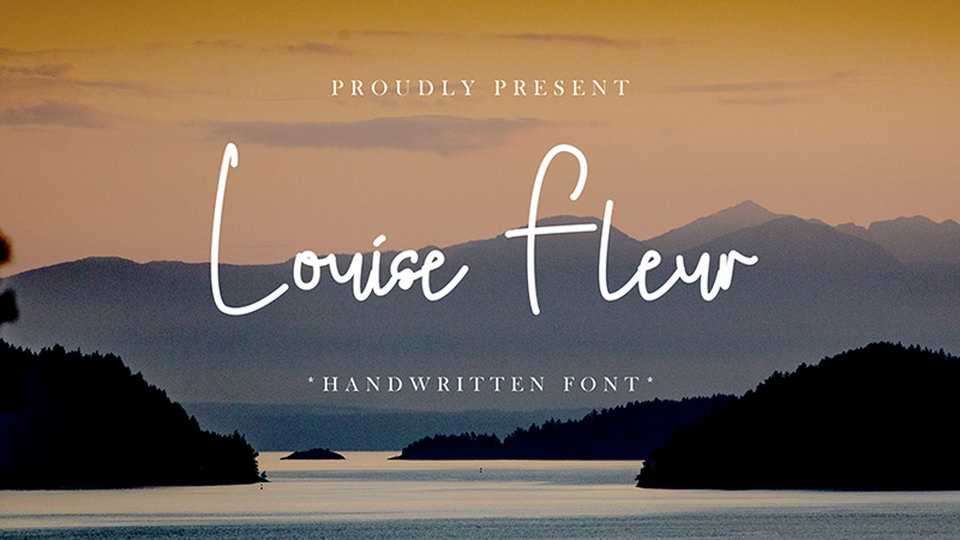
Download Louise Fleur font, a simple handwritten typeface with a casual look. Louise Fleur is suitable for notes, quotes, card, social media and other crafts.